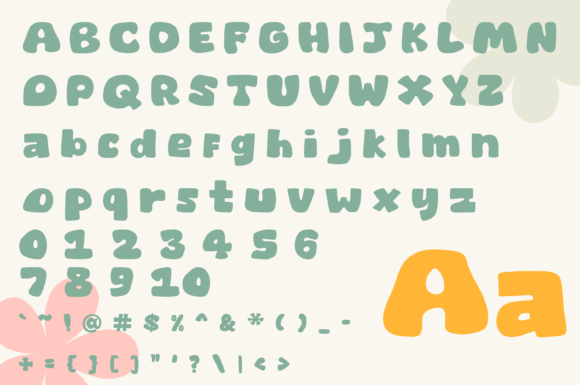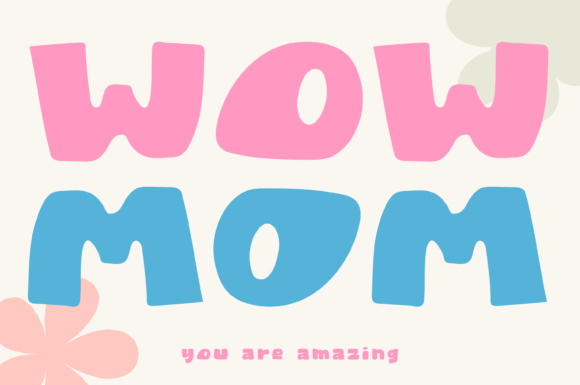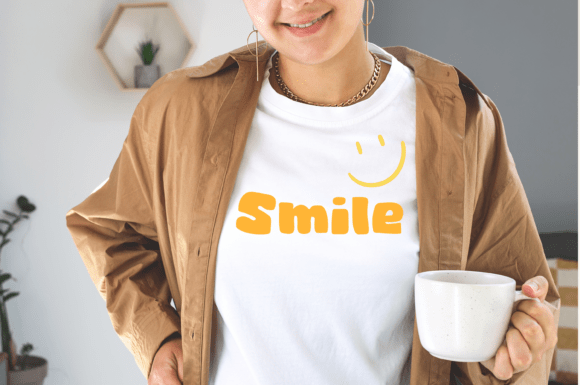
Introduction to Chunky Pop Bounce Font
Have you ever stumbled upon a font that instantly lifts your mood and sparks creativity? For designers, it’s a treasure to find that perfect combination of style and personality that makes your projects stand out. That’s exactly what the Chunky Pop Bounce Font offers – a playful and energetic display font that’s sure to bring joy to your creative endeavors.
Imagine you’re working on a children’s book, and you need a font that screams fun and excitement. Or, perhaps you’re designing a vibrant food packaging label, and you want a font that will make your product stand out on store shelves. The Chunky Pop Bounce Font is an excellent choice for any project that requires a lighthearted and approachable vibe.
Key Features of Chunky Pop Bounce Font
- Unique, playful design ideal for creative projects requiring a fun and eye-catching font.
- Large character set with multiple weights and styles, making it suitable for a variety of design applications.
Honest Review: Chunky Pop Bounce Font
As a designer, I’m always on the lookout for fresh and exciting fonts to elevate my creative projects. The Chunky Pop Bounce Font caught my eye, and I was eager to dive in and see what it had to offer.
Here’s the good stuff: ✨ The Chunky Pop Bounce Font is a high-quality design resource that’s perfect for creating eye-catching graphics and animations. Its chunky, bouncy style is ideal for adding a playful touch to your designs, and the transparent background makes it easy to layer with other elements.
Some of the key features that stood out to me include:
- High-quality vector graphics
- Transparent background for easy layering
- Fun and playful design style
Of course, no font is perfect, and the Chunky Pop Bounce Font has a few limitations: ⚠️ The font is only available in a limited range of sizes, which may limit its use in certain applications. Additionally, the font’s chunky style may not be suitable for all types of designs, such as those requiring a more subtle or elegant look.
Overall, I’m impressed with the Chunky Pop Bounce Font, and I think it’s a great addition to any designer’s toolkit. Its fun and playful style makes it perfect for a wide range of creative projects, from animations to social media graphics. Give it a try and see what you think!
Common Use Cases for Chunky Pop Bounce Font
The Chunky Pop Bounce Font is a versatile design resource that can be used in a variety of creative projects, including social media graphics, event invitations, and business logos. It’s also a great choice for designers who want a free download with a high-quality and transparent background.